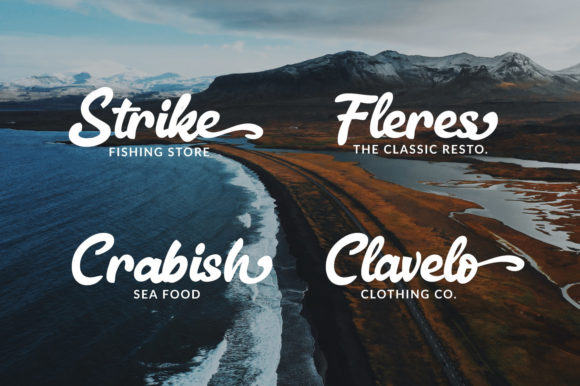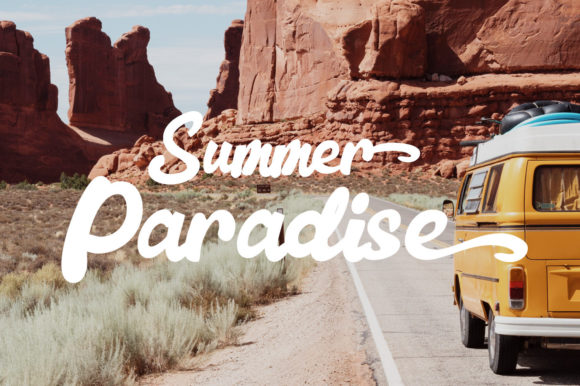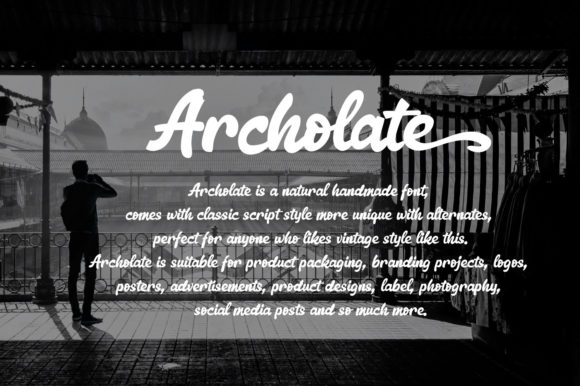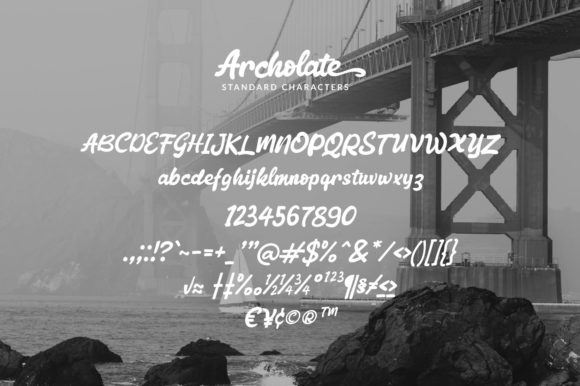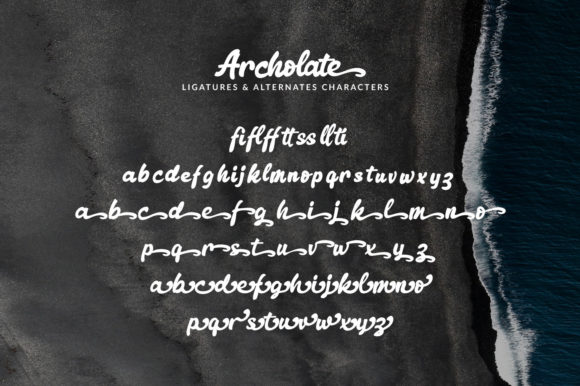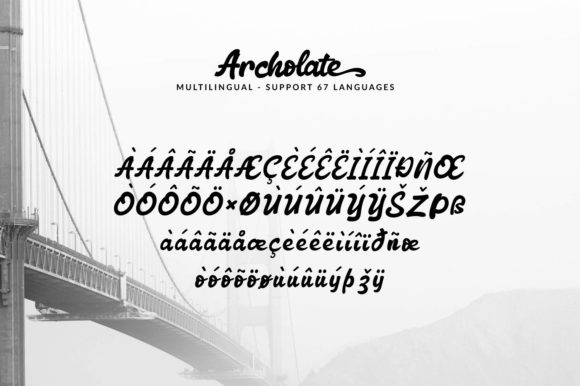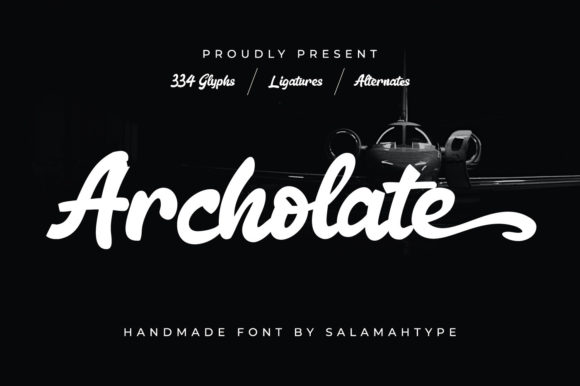
Introducing Archolate Script Font: The Epitome of Elegance and Charm
Are you a designer or crafter looking for a font that exudes romance and sophistication? Look no further than the Archolate Script Font. This beautiful, handwritten font is designed to add a touch of elegance and charm to any project. With its flowing and delicate characters, Archolate Script is perfect for projects that require lovely, romantic typography.
What Makes Archolate Script Font So Special?
Archolate Script Font is a unique and exquisite font that stands out from the rest. Its flowing and delicate characters are carefully crafted to create a sense of movement and fluidity, making it perfect for projects that require a touch of elegance. Whether you’re designing a wedding invitation, a romantic poster, or a beautiful journal, Archolate Script Font is sure to impress.
Key Features of Archolate Script Font
- Flowing and Delicate Characters: Each character in Archolate Script Font is carefully crafted to create a sense of movement and fluidity, making it perfect for projects that require a touch of elegance.
- PUA Encoded: This font is PUA encoded, which means you can access all of the glyphs and swashes with ease. This makes it easy to use and customize the font to suit your needs.
- Handwritten with Love: Archolate Script Font is a handwritten font, which gives it a personal and unique touch. Each character is carefully crafted to create a sense of warmth and personality.
- Romantic and Elegant: This font is perfect for projects that require a touch of romance and elegance. Whether you’re designing a wedding invitation or a romantic poster, Archolate Script Font is sure to impress.
Use Archolate Script Font for Your Next Project
Archolate Script Font is perfect for a variety of projects, including:
- Wedding Invitations: Add a touch of elegance and romance to your wedding invitations with Archolate Script Font.
- Romantic Posters: Create beautiful and romantic posters with Archolate Script Font.
- Journaling and Scrapbooking: Use Archolate Script Font to add a personal touch to your journal or scrapbook.
- Branding and Packaging: Use Archolate Script Font to add a touch of elegance and sophistication to your brand or product packaging.
Why Designers and Crafters Love Archolate Script Font
Designers and crafters love Archolate Script Font for its unique and elegant design. Here are just a few reasons why:
- Unique and Exclusive: Archolate Script Font is a unique and exclusive font that will make your project stand out from the rest.
- Elegant and Sophisticated: This font is perfect for projects that require a touch of elegance and sophistication.
- Easy to Use: Archolate Script Font is PUA encoded, which makes it easy to use and customize.
- High-Quality Design: This font is designed with high-quality and attention to detail, making it perfect for professional projects.
| Font Name | Archolate Script Font |
| Author | salamahtype |
In conclusion, Archolate Script Font is a beautiful and elegant font that is perfect for projects that require lovely, romantic typography. With its flowing and delicate characters, PUA encoding, and handwritten design, this font is sure to impress. Whether you’re a designer or crafter, Archolate Script Font is a must-have font for your next project.